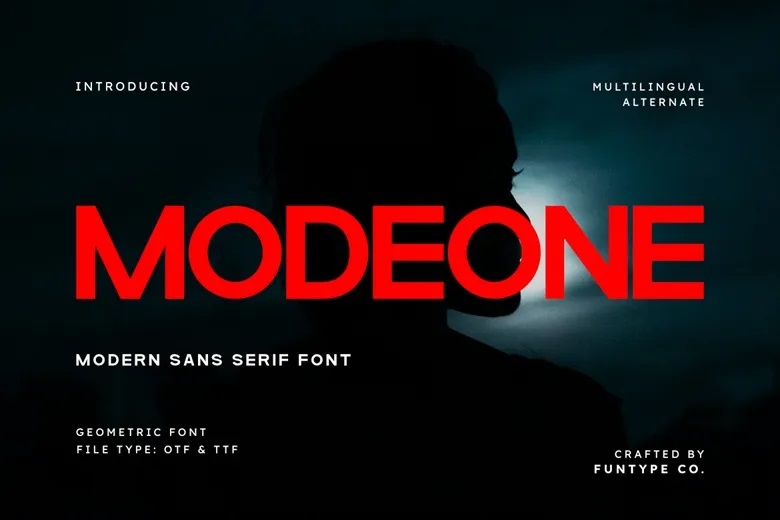
Modeone Font
Modeone is a contemporary, bold geometric typeface created for impact, clarity and flexibility. With is confident weight and clean structure, its constructed to stand out in high-impact visual communication and professional layout work. The thoughtfully balanced geometric forms make it a strong option for modern branding, commanding headlines, editorial layouts, and futuristic logo designs.
Combining minimalist design with a powerful visual appeal, Modeone helps your design work feel modern, clear, and memorable. It’s a reliable font for creatives who need simplicity with results and strength that leave a lasting impression.
Modeone Sans Serif Font